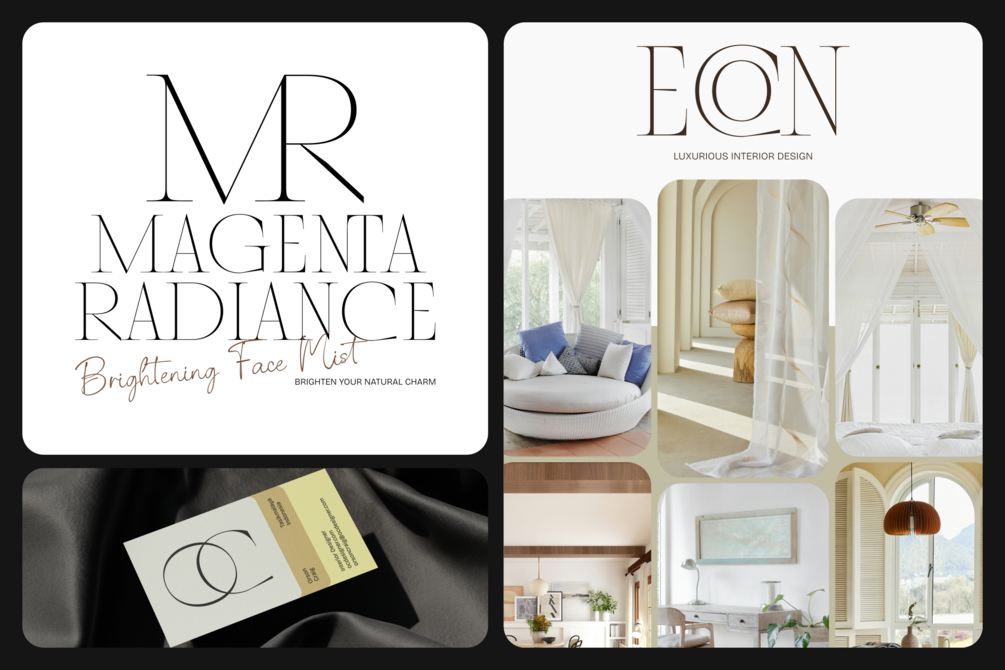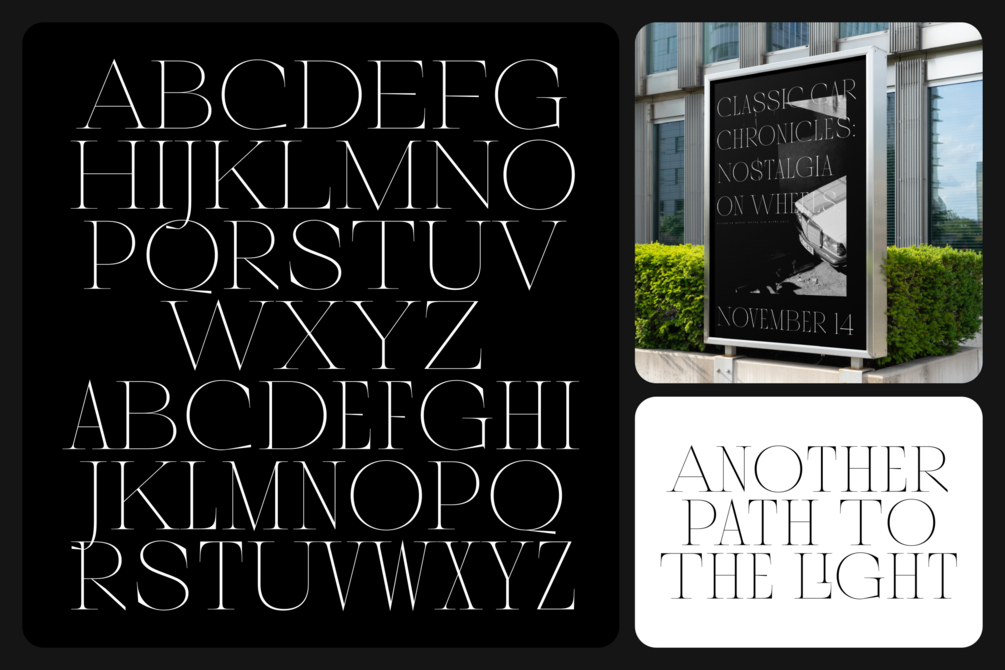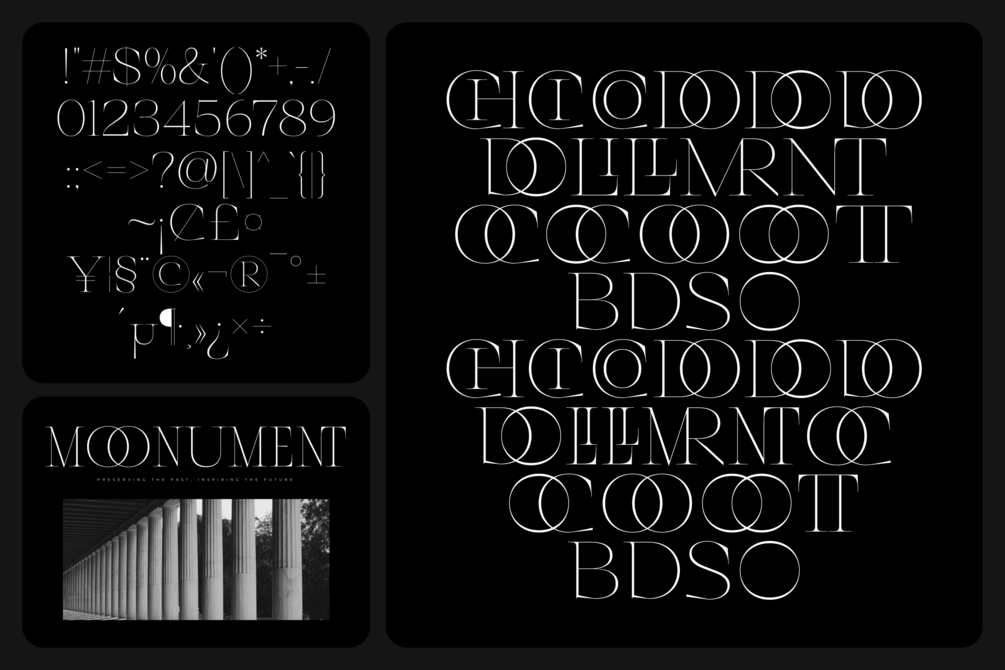
Foller - Elegant Thin with Unique Ligatures Serif
Foller exude elegance and sophistication, with their thin strokes and tall, narrow proportions creating a refined, calm, luxury and timeless vibe perfect for upscale and formal designs.